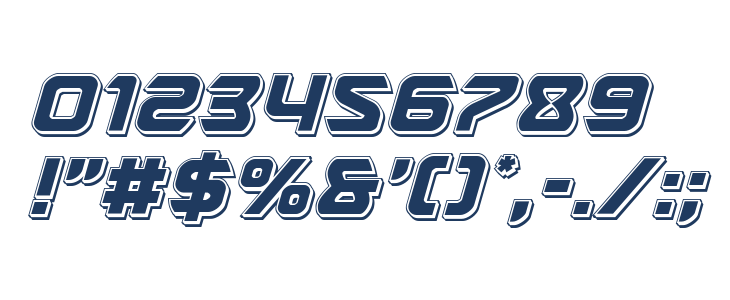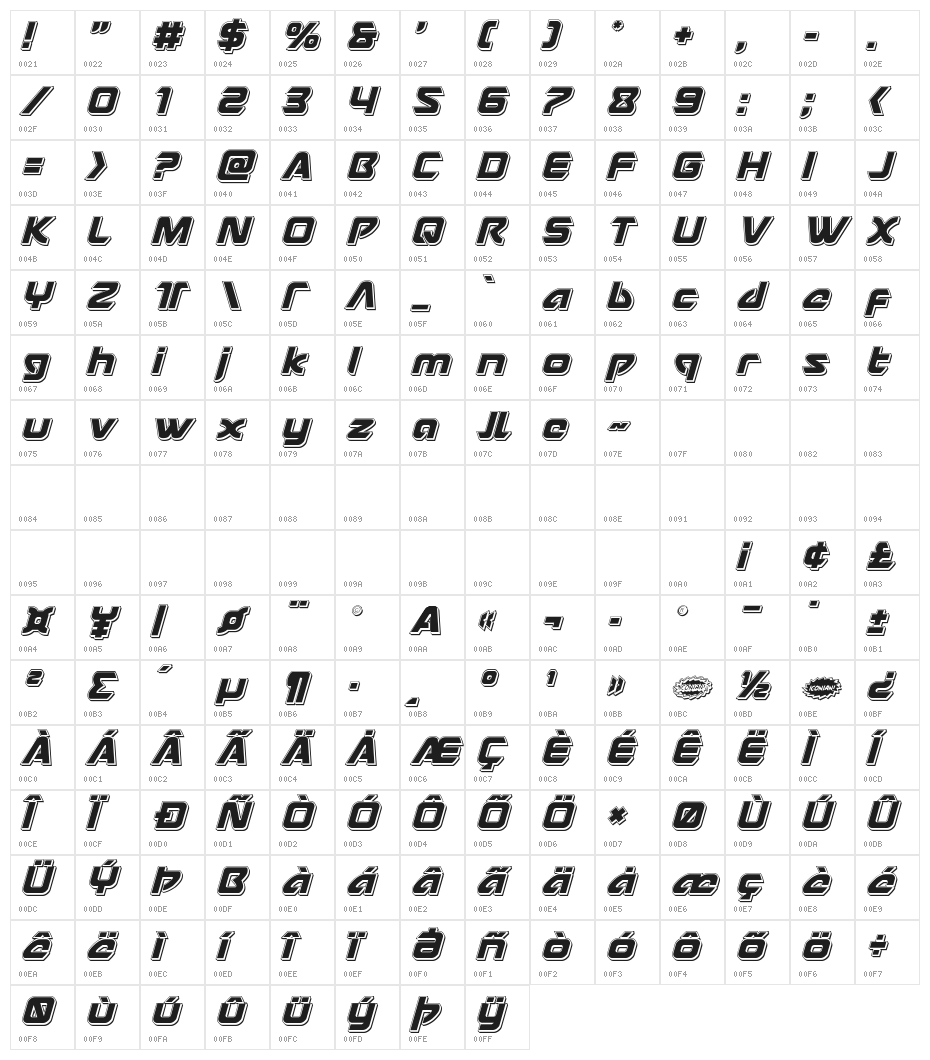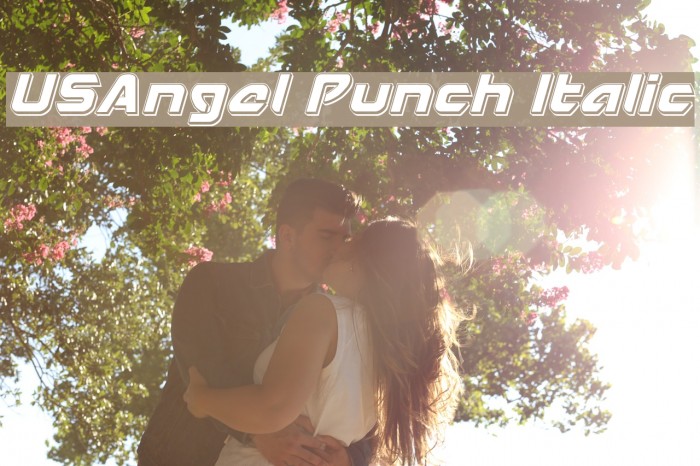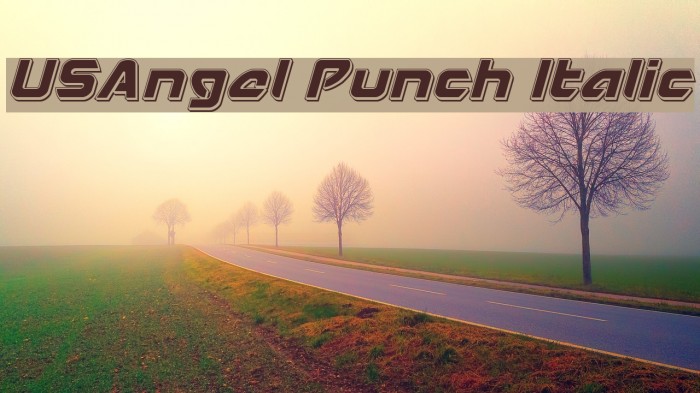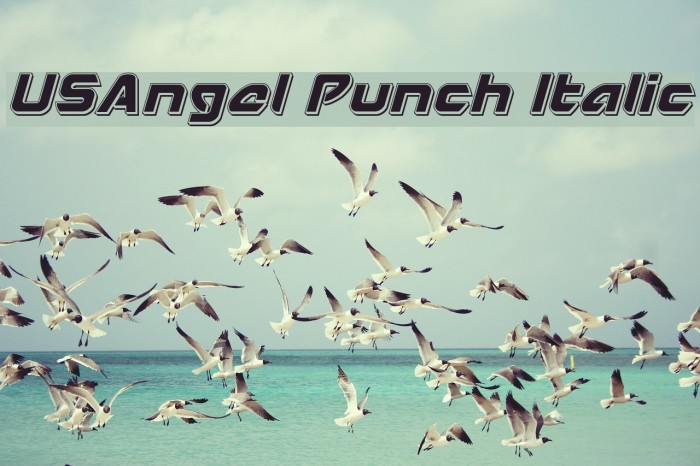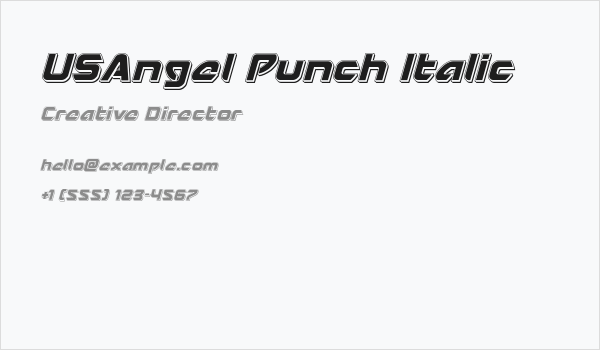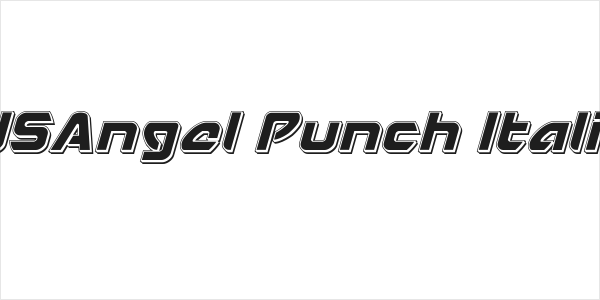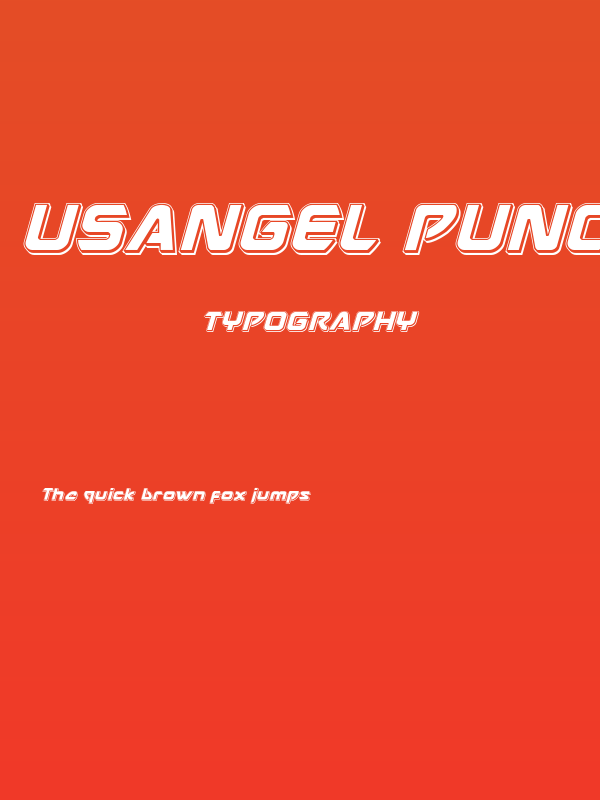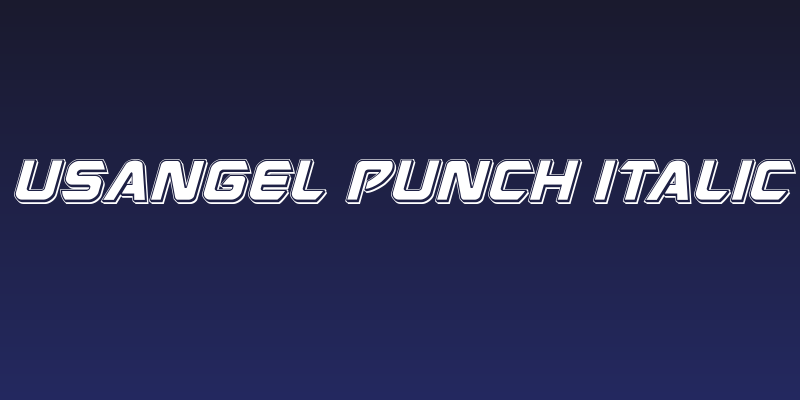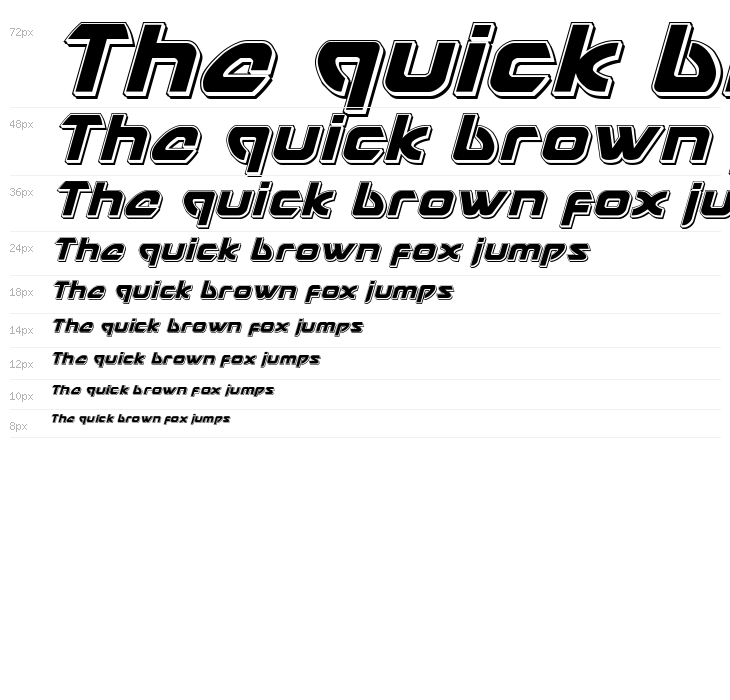
USAngel Punch Italic Font
USAngel Punch Italic Description
This font features a bold and dynamic style with a distinct italic slant, giving it a sense of motion and energy. The characters are outlined with a thick border, creating a striking contrast between the inner and outer edges. The design incorporates sharp angles and clean lines, contributing to a modern and futuristic appearance. The uppercase and lowercase letters maintain a consistent style, with the lowercase characters slightly more rounded. Numbers and special characters are designed to match the bold and energetic aesthetic, making the font suitable for attention-grabbing headlines and impactful designs.